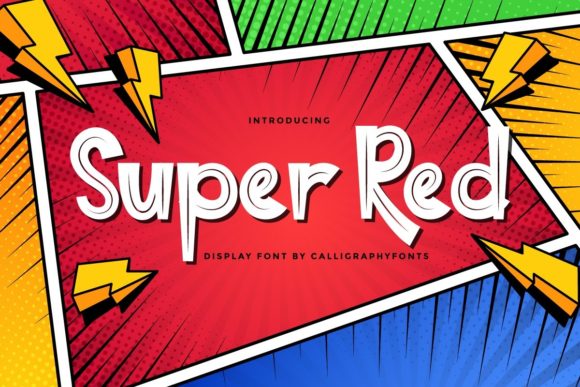
Unleash Your Creativity with Super Red: The Playful Display Font That Ignites Joy
Journey into a world of delightful designs with Super Red, the vivacious display font crafted to spark imagination and bring smiles. Immerse yourself in the realm of cartoon wonder, create children's games that captivate young minds, turn quotes into vibrant expressions, and transform titles into playful statements. With Super Red, your brand names will radiate vibrancy, book covers will dance with enchantment, and posters will ignite joy like never before. Dive into a world of limitless possibilities, where every creation is infused with a touch of whimsy and pure delight.
Let Super Red become your artistic playground as you explore its boundless versatility. Whether you seek to craft captivating logos that demand attention or weave enchanting stories through engaging social media posts, Super Red stands as your unwavering companion. Unleash your inner child and let your creativity soar with this font that awakens the imagination.
Discover the ease and convenience of using Super Red. Say goodbye to time-consuming adjustments and hello to a world where creativity flows effortlessly. Let this user-friendly font adapt seamlessly to your design projects without a hitch. Experience the joy of creating without boundaries, knowing that Super Red will effortlessly accommodate your every whim.
Welcome to the world of Super Red, where joy and creativity intertwine. Let this remarkable font ignite your imagination and elevate your designs to extraordinary heights. Join the countless artists, designers, and dreamers who have found their creative bliss with Super Red. Embark on your creative adventure today and witness the magic unfold.